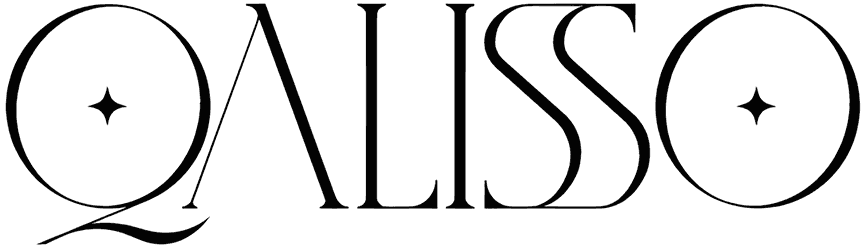
Qalisso Font
If you are trying to give your design an elegant, modern touch that never loses its formal tone, then Qalisso can provide what you need. It’s a subtle serif font with a unique display. As long as applied to your text, making it look brilliant, luxurious, and valid.
Lowercase letters are not supported; however, the other characters are completely covered. This ligature font will be perfect for wedding invitations, cosmetic packages, branding material, advertising aims, and fashion projects.